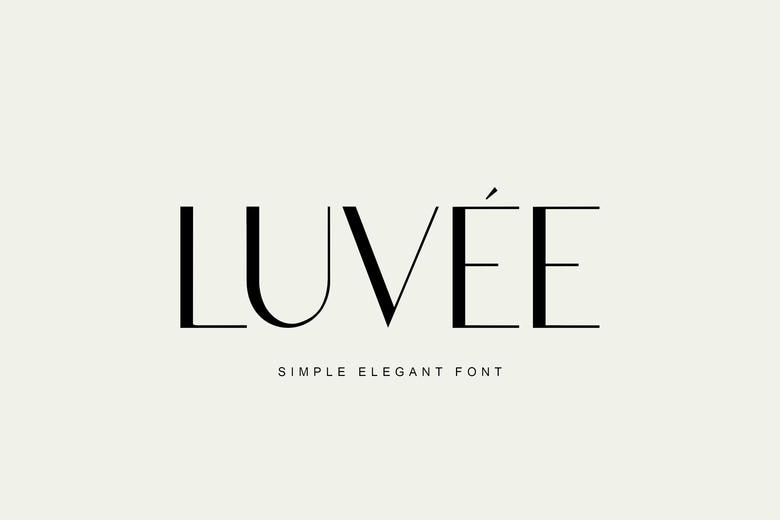
Luvee Font
Luvée is a simple, elegant sans-serif font with clean lines and timeless style. Perfect for modern, minimalist designs, it adds a touch of sophistication to any project. The free version provides all uppercase and lowercase letters and a few special characters too.
Luvee Sans Serif Font